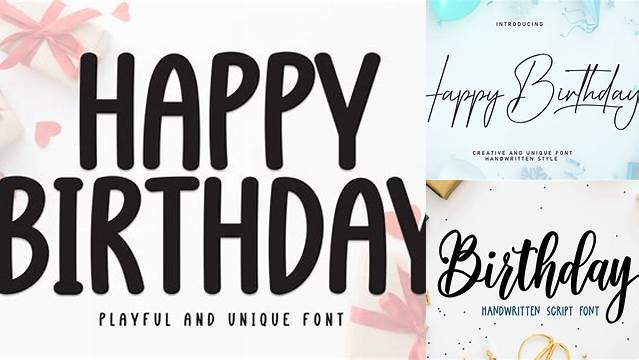
Easy & Fun Fonts For 'Happy Birthday' Wishes
Let's dive into the world of fonts that make saying "Happy Birthday" extra special! Choosing the right font can transform a simple message into a memorable greeting. Whether you're designing a card, creating a social media post, or personalizing a gift, the font you select plays a crucial role in conveying the right tone and feeling. In this article, we'll explore a variety of easy fonts to write happy birthday, offering options for every style and occasion. So, grab your creative hat, and let's get started!
1. Classic & Elegant Fonts for Birthday Greetings
When you want to convey a sense of timelessness and sophistication, classic and elegant fonts are the way to go. These fonts are perfect for formal birthday cards, invitations, or when you want to add a touch of class to your message. Think about how a beautifully written name in calligraphy can elevate a simple card. Easy fonts to write happy birthday in this category include options like Times New Roman, Garamond, and Didot. These fonts have a strong presence and are easy to read, making them ideal for both print and digital media. Using these fonts shows that you've put thought and care into your message, making the recipient feel truly special. Garamond, for instance, has a slightly softer feel than Times New Roman, which can add a touch of warmth to your greeting. Didot, with its high contrast and elegant serifs, is perfect for creating a luxurious feel. Consider pairing these fonts with complementary colors and designs to create a truly memorable birthday message.
2. Fun & Playful Fonts for Kids' Birthdays
For kids' birthdays, you want fonts that are bursting with fun and energy! These fonts should be lively, colorful, and easy to read for young eyes. Easy fonts to write happy birthday for children's celebrations include options like Comic Sans MS (yes, it still has its place!), Bubblegum Sans, and KG Red Hands. These fonts often feature rounded edges, whimsical shapes, and a generally lighthearted feel. Imagine a birthday banner with "Happy Birthday" written in a bubbly, cartoonish font – it immediately sets a festive tone. When selecting a font for kids, consider the overall theme of the party or the child's personality. A font with playful swirls and dots can be perfect for a fairy-tale-themed party, while a bolder, more geometric font might be suitable for a superhero celebration. Don't be afraid to use bright colors and fun graphics to complement the font and create a truly engaging and memorable birthday message.
3. Modern & Stylish Fonts for Birthday Wishes
If you're aiming for a contemporary and chic look, modern and stylish fonts are your best bet. These fonts are sleek, minimalist, and often feature clean lines and geometric shapes. Easy fonts to write happy birthday in a modern style include fonts like Helvetica, Arial, and Montserrat. These fonts are versatile and can be used in a variety of contexts, from social media posts to personalized gifts. They convey a sense of sophistication and forward-thinking, making them perfect for birthdays of friends, colleagues, or anyone who appreciates a modern aesthetic. Helvetica, for example, is known for its neutrality and readability, making it a great choice for conveying a clear and concise birthday message. Arial is another excellent option, offering a similar feel with slightly softer edges. Montserrat, with its geometric forms and clean lines, adds a touch of elegance to any birthday greeting. Pair these fonts with minimalist designs and a modern color palette to create a stylish and memorable birthday message.
4. Handwritten & Script Fonts for a Personal Touch
For a personal and heartfelt touch, handwritten and script fonts are the way to go. These fonts mimic the look of actual handwriting, adding a sense of warmth and intimacy to your birthday message. Easy fonts to write happy birthday with a personal feel include options like Brush Script MT, Lucida Calligraphy, and Pacifico. These fonts often feature flowing strokes, elegant curves, and a unique character that sets them apart from more traditional fonts. Imagine receiving a birthday card with a handwritten message – it feels much more special and personal than a generic, printed greeting. When selecting a handwritten or script font, consider the overall tone of your message and the recipient's personality. A delicate and flowing script might be perfect for a romantic birthday card, while a bolder, more expressive script could be suitable for a close friend or family member. Remember to ensure that the font is still legible, as some handwritten fonts can be difficult to read. Pair these fonts with a handwritten note or a personalized touch to create a truly memorable birthday message.
5. Bold & Impactful Fonts for Birthday Announcements
When you want to make a statement and grab attention, bold and impactful fonts are essential. These fonts are designed to stand out and convey a sense of importance and excitement. Easy fonts to write happy birthday with a bold presence include options like Impact, Bebas Neue, and Montserrat Bold. These fonts often feature thick strokes, strong letterforms, and a generally commanding presence. Think about a birthday banner or a social media post – a bold font can instantly draw the eye and make your message impossible to ignore. When selecting a bold font, consider the overall context of your message and the target audience. A bold font might be perfect for a large birthday celebration or a promotional announcement, but it might be too overwhelming for a more intimate gathering. Use these fonts sparingly and strategically to create a memorable and impactful birthday message. Pair them with contrasting colors and simple designs to maximize their effect and ensure that your message stands out from the crowd.
6. Cursive Fonts for Elegant Birthday Invitations
Cursive fonts, also known as script fonts, are ideal for adding a touch of elegance and sophistication to birthday invitations. These fonts mimic the flowing strokes of handwriting, creating a sense of personalization and charm. Easy fonts to write happy birthday on elegant invitations include options like Brush Script MT, Edwardian Script ITC, and Great Vibes. These fonts often feature decorative flourishes and graceful curves that enhance the overall aesthetic of the invitation. Imagine receiving a beautifully crafted invitation with the recipient's name and birthday details written in a flowing cursive font – it immediately sets a tone of refinement and exclusivity. When selecting a cursive font, consider the overall theme of the party and the desired level of formality. A more elaborate script might be perfect for a black-tie event, while a simpler cursive font could be suitable for a garden party or a casual celebration. Ensure that the font is legible and that the spacing between letters is adequate to maintain readability. Pair these fonts with high-quality paper and elegant design elements to create truly memorable and impressive birthday invitations.
7. Sans-Serif Fonts for Modern Birthday Cards
Sans-serif fonts are characterized by their clean lines and lack of decorative serifs, making them a popular choice for modern and minimalist birthday cards. These fonts offer a sleek and contemporary look that is both versatile and easy to read. Easy fonts to write happy birthday on modern cards include options like Arial, Helvetica, Open Sans, and Roboto. These fonts are often used in digital designs and are well-suited for conveying a sense of simplicity and sophistication. Imagine a birthday card with a sans-serif font paired with a minimalist design and a subtle color palette – it creates a modern and stylish aesthetic that is perfect for conveying your birthday wishes in a contemporary way. When selecting a sans-serif font, consider the overall tone of your message and the recipient's personal style. A lighter sans-serif font can convey a sense of lightness and airiness, while a bolder sans-serif font can add a touch of strength and confidence. Pair these fonts with modern design elements and a clean layout to create a truly impactful and memorable birthday card.
8. Serif Fonts for Traditional Birthday Messages
Serif fonts are characterized by their small decorative strokes (serifs) at the ends of the letterforms, giving them a classic and traditional appearance. These fonts are often used in print materials and are well-suited for conveying a sense of formality and elegance in birthday messages. Easy fonts to write happy birthday in a traditional style include options like Times New Roman, Garamond, and Georgia. These fonts have a timeless quality and are often associated with sophistication and refinement. Imagine a birthday message written in a serif font on high-quality paper – it conveys a sense of tradition and thoughtfulness that is perfect for expressing your heartfelt wishes. When selecting a serif font, consider the overall tone of your message and the recipient's personal preferences. A more ornate serif font can add a touch of grandeur, while a simpler serif font can convey a sense of understated elegance. Pair these fonts with classic design elements and a traditional color palette to create a truly timeless and memorable birthday message.
9. Display Fonts for Eye-Catching Birthday Banners
Display fonts are designed to be used in large sizes, making them ideal for creating eye-catching birthday banners and posters. These fonts often feature unique and decorative letterforms that are meant to grab attention and make a statement. Easy fonts to write happy birthday on banners include options like Impact, Bebas Neue, and Lobster. These fonts are bold, attention-grabbing, and designed to stand out from the crowd. Imagine a birthday banner with "Happy Birthday" written in a bold display font – it immediately sets a festive tone and adds to the excitement of the celebration. When selecting a display font, consider the overall theme of the party and the target audience. A playful display font might be perfect for a children's birthday party, while a more sophisticated display font could be suitable for an adult celebration. Ensure that the font is legible and that the banner is visually appealing. Pair these fonts with bright colors and fun graphics to create a truly memorable and impactful birthday banner.
10. Monospace Fonts for Unique Birthday Cards
Monospace fonts, where each character occupies the same amount of horizontal space, offer a unique and unconventional look for birthday cards. These fonts can add a touch of retro charm or a modern, tech-inspired aesthetic to your birthday greetings. Easy fonts to write happy birthday on unique cards include options like Courier New, Consolas, and Monaco. These fonts are often associated with typewriters and coding, giving them a distinctive and recognizable appearance. Imagine a birthday card with a monospace font paired with a minimalist design and a contrasting color palette – it creates a modern and edgy aesthetic that is perfect for conveying your birthday wishes in a unique and unexpected way. When selecting a monospace font, consider the overall tone of your message and the recipient's personal style. A lighter monospace font can convey a sense of simplicity and clarity, while a bolder monospace font can add a touch of strength and confidence. Pair these fonts with modern design elements and a clean layout to create a truly impactful and memorable birthday card.
11. Vintage Fonts for Nostalgic Birthday Wishes
Vintage fonts evoke a sense of nostalgia and charm, making them perfect for creating birthday messages that feel like they've been plucked from a bygone era. These fonts often feature unique serifs, decorative elements, and a handcrafted feel that adds character and warmth to your greetings. Easy fonts to write happy birthday with a vintage touch include options like Playfair Display, Raleway, and Cinzel. These fonts harken back to different periods in history, from the elegant Art Deco era to the rustic charm of old-fashioned signage. Imagine a birthday card with a vintage font paired with sepia-toned images and antique-inspired designs – it creates a timeless and heartfelt message that is sure to be appreciated. When selecting a vintage font, consider the specific era you want to evoke and the recipient's personal style. A more ornate vintage font can add a touch of grandeur, while a simpler vintage font can convey a sense of understated elegance. Pair these fonts with appropriate design elements and a complementary color palette to create a truly memorable and nostalgic birthday message.
12. Calligraphy Fonts for Elegant Birthday Cards
Calligraphy fonts mimic the elegant strokes of traditional calligraphy, adding a touch of sophistication and artistry to birthday cards. These fonts are perfect for creating a sense of personalization and refinement, making the recipient feel truly special. Easy fonts to write happy birthday on elegant cards include options like Alex Brush, Allura, and Windsong. These fonts feature flowing lines, decorative flourishes, and a handcrafted feel that elevates the overall aesthetic of the card. Imagine a birthday card with "Happy Birthday" written in a beautiful calligraphy font – it immediately conveys a sense of care and attention to detail. When selecting a calligraphy font, consider the overall tone of your message and the recipient's personality. A more elaborate and ornate calligraphy font might be perfect for a formal birthday, while a simpler and more understated calligraphy font could be suitable for a more casual celebration. Pair these fonts with elegant design elements and a complementary color palette to create a truly memorable and artistic birthday card.
13. Retro Fonts for Groovy Birthday Greetings
Retro fonts capture the spirit of past decades, from the psychedelic 60s to the bold 80s, making them a fun and unique choice for birthday greetings. These fonts often feature bold shapes, vibrant colors, and a playful attitude that adds a touch of nostalgia to your messages. Easy fonts to write happy birthday with a retro vibe include options like Cooper Black, Bauhaus 93, and ITC Benguiat. These fonts evoke a sense of fun and freedom, perfect for celebrating birthdays with a touch of retro flair. Imagine a birthday card with a retro font paired with vintage illustrations and a bold color palette – it creates a groovy and memorable message that is sure to bring a smile to the recipient's face. When selecting a retro font, consider the specific decade you want to represent and the recipient's personal style. A font reminiscent of disco or funk can add a playful energy, while a font inspired by classic movie posters can create a more sophisticated retro look. Pair these fonts with appropriate design elements and a complementary color palette to create a truly authentic and memorable retro birthday message.
14. Fun Script Fonts for Playful Birthday Wishes
Fun script fonts are perfect for adding a touch of whimsy and playfulness to your birthday wishes. These fonts often feature exaggerated curves, quirky shapes, and a lighthearted feel that is sure to bring a smile to the recipient's face. Easy fonts to write happy birthday with a playful twist include options like Lobster Two, Amatic SC, and Permanent Marker. These fonts are ideal for casual birthday greetings, children's parties, or any occasion where you want to inject a bit of fun into your message. Imagine a birthday card with "Happy Birthday" written in a fun script font – it immediately sets a cheerful and festive tone. When selecting a fun script font, consider the overall theme of your message and the recipient's personality. A font with bouncy letters and playful swirls can add a touch of lightheartedness, while a font that mimics handwriting can create a more personal and intimate feel. Pair these fonts with colorful design elements and a complementary color palette to create a truly memorable and playful birthday message.
15. Elegant Script Fonts for Formal Birthday Celebrations
Elegant script fonts exude sophistication and grace, making them ideal for formal birthday celebrations and invitations. These fonts feature flowing lines, delicate curves, and a refined appearance that adds a touch of luxury to your messages. Easy fonts to write happy birthday on elegant invitations include options like Edwardian Script ITC, Great Vibes, and Dancing Script. These fonts are perfect for creating a sense of importance and exclusivity, making the recipient feel truly special. Imagine a birthday invitation with "Happy Birthday" written in an elegant script font – it immediately conveys a sense of sophistication and attention to detail. When selecting an elegant script font, consider the overall tone of your event and the desired level of formality. A more elaborate and ornate script font might be perfect for a black-tie gala, while a simpler and more understated script font could be suitable for a cocktail party or a formal dinner. Pair these fonts with high-quality paper, elegant design elements, and a complementary color palette to create a truly memorable and sophisticated birthday celebration.
16. Geometric Fonts for Modern Birthday Greetings
Geometric fonts are characterized by their clean lines, precise shapes, and a contemporary aesthetic, making them a popular choice for modern birthday greetings. These fonts offer a sleek and minimalist look that is both versatile and easy to read. Easy fonts to write happy birthday on modern cards include options like Montserrat, Futura, and Avenir. These fonts are often used in digital designs and are well-suited for conveying a sense of simplicity and sophistication. Imagine a birthday card with a geometric font paired with a minimalist design and a subtle color palette – it creates a modern and stylish aesthetic that is perfect for conveying your birthday wishes in a contemporary way. When selecting a geometric font, consider the overall tone of your message and the recipient's personal style. A lighter geometric font can convey a sense of lightness and airiness, while a bolder geometric font can add a touch of strength and confidence. Pair these fonts with modern design elements and a clean layout to create a truly impactful and memorable birthday card.
17. Slab Serif Fonts for Bold Birthday Announcements
Slab serif fonts, characterized by their thick, block-like serifs, make a bold statement and are ideal for birthday announcements. These fonts command attention and convey a sense of strength and reliability. Easy fonts to write happy birthday on announcements include options like Rockwell, Courier Prime, and Roboto Slab. These fonts stand out and are easy to read, making them perfect for banners, posters, and digital displays. Imagine a birthday announcement with "Happy Birthday" written in a slab serif font – it immediately grabs attention and conveys a sense of importance. When selecting a slab serif font, consider the overall tone of your message and the target audience. A bolder slab serif font can be perfect for a grand celebration, while a more refined slab serif font could be suitable for a professional setting. Pair these fonts with contrasting colors and simple designs to maximize their effect and ensure that your message is clear and impactful.
18. Brush Script Fonts for Personalized Birthday Notes
Brush script fonts mimic the look of handwritten brushstrokes, adding a personal and artistic touch to birthday notes. These fonts convey a sense of warmth and authenticity, making the recipient feel truly special. Easy fonts to write happy birthday in a handwritten style include options like Brush Script MT, Pacifico, and Permanent Marker. These fonts are perfect for expressing heartfelt sentiments and creating a connection with the recipient. Imagine a birthday note with "Happy Birthday" written in a brush script font – it feels much more intimate and thoughtful than a generic, printed greeting. When selecting a brush script font, consider the overall tone of your message and the recipient's personality. A delicate and flowing brush script might be perfect for a romantic birthday, while a bolder and more expressive brush script could be suitable for a close friend or family member. Pair these fonts with a handwritten signature or a personalized message to create a truly memorable and touching birthday note.
19. Handwritten-Style Fonts for Casual Birthday Greetings
Handwritten-style fonts bring a personal and relatable feel to your casual birthday greetings. These fonts mimic the quirks and imperfections of actual handwriting, making your messages feel more authentic and heartfelt. Easy fonts to write happy birthday in a casual manner include options like Coming Soon, Indie Flower, and Patrick Hand. These fonts are perfect for friends, family, and anyone you want to connect with on a more personal level. Imagine receiving a birthday message written in a handwritten-style font – it feels warm, genuine, and full of character. When selecting a handwritten-style font, consider the recipient's personality and the overall tone of your message. A neat and legible handwritten font might be suitable for a colleague or acquaintance, while a more casual and expressive handwritten font could be perfect for a close friend or family member. Pair these fonts with a simple design and a personal message to create a truly memorable and heartfelt birthday greeting.
20. Layered Fonts for 3D Birthday Designs
Layered fonts offer a unique and visually appealing way to create 3D effects in your birthday designs. These fonts are designed with multiple layers that can be colored and positioned to give the illusion of depth and dimension. Easy fonts to write happy birthday in a 3D style include options like Bison, Modular, and Block Party. These fonts are perfect for creating eye-catching banners, posters, and social media graphics that will truly stand out. Imagine a birthday banner with "Happy Birthday" written in a layered font with a vibrant 3D effect – it's sure to grab attention and add a touch of excitement to the celebration. When selecting a layered font, consider the overall design of your project and the desired level of complexity. A simpler layered font can create a subtle 3D effect, while a more intricate layered font can produce a dramatic and eye-catching result. Experiment with different colors, shadows, and layering techniques to achieve the perfect 3D look for your birthday designs.
21. Outline Fonts for Minimalist Birthday Cards
Outline fonts, with their hollow centers and defined edges, offer a minimalist and contemporary look for birthday cards. These fonts are perfect for creating a clean and modern aesthetic that is both stylish and easy to read. Easy fonts to write happy birthday on minimalist cards include options like Bebas Neue, Montserrat, and Raleway. These fonts are often used in digital designs and are well-suited for conveying a sense of simplicity and sophistication. Imagine a birthday card with "Happy Birthday" written in an outline font paired with a minimalist design and a subtle color palette – it creates a modern and stylish aesthetic that is perfect for conveying your birthday wishes in a contemporary way. When selecting an outline font, consider the overall tone of your message and the recipient's personal style. A lighter outline font can convey a sense of lightness and airiness, while a bolder outline font can add a touch of strength and confidence. Pair these fonts with modern design elements and a clean layout to create a truly impactful and memorable birthday card.
22. Shadow Fonts for Dynamic Birthday Graphics
Shadow fonts add depth and dimension to your birthday graphics, creating a dynamic and visually appealing effect. These fonts are designed with a shadow that extends from the letterforms, giving the illusion of a 3D appearance. Easy fonts to write happy birthday with a shadow effect include options like Impact, Arial Black, and Bebas Neue. These fonts are perfect for creating eye-catching banners, posters, and social media graphics that will grab attention and add a touch of excitement to the celebration. Imagine a birthday banner with "Happy Birthday" written in a shadow font with a vibrant color palette – it's sure to make a statement and create a festive atmosphere. When selecting a shadow font, consider the overall design of your project and the desired level of depth. A subtle shadow can add a touch of sophistication, while a more dramatic shadow can create a bold and eye-catching effect. Experiment with different shadow colors, angles, and offsets to achieve the perfect look for your birthday graphics.
23. Distorted Fonts for Edgy Birthday Designs
Distorted fonts, with their irregular shapes and unconventional forms, bring an edgy and unique twist to birthday designs. These fonts break away from traditional typography and offer a creative way to express your birthday wishes with a touch of rebellion. Easy fonts to write happy birthday with a distorted look include options like VTF Redzone Classic, Anarchy, and Bad Grunge. These fonts are perfect for individuals who appreciate unconventional styles and want to add a bold statement to their birthday greetings. Imagine a birthday card with "Happy Birthday" written in a distorted font paired with a grunge-inspired design and a contrasting color palette – it creates an edgy and memorable message that is sure to stand out. When selecting a distorted font, consider the recipient's personality and the overall tone of your message. A subtly distorted font can add a touch of character, while a more drastically distorted font can convey a sense of boldness and nonconformity. Pair these fonts with edgy design elements and a complementary color palette to create a truly unique and memorable birthday design.
24. Pixel Fonts for Retro Gaming Birthday Themes
Pixel fonts, reminiscent of classic video games, are a fun and nostalgic choice for birthday themes centered around retro gaming. These fonts capture the charm of 8-bit and 16-bit graphics, adding a playful and whimsical touch to your birthday greetings. Easy fonts to write happy birthday in a pixelated style include options like Press Start 2P, 8-Bit Operator, and VCR OSD Mono. These fonts are perfect for creating invitations, banners, and decorations for a retro gaming-themed birthday party. Imagine a birthday invitation with "Happy Birthday" written in a pixel font alongside pixelated characters and game-inspired designs – it's sure to set the tone for a fun and nostalgic celebration. When selecting a pixel font, consider the resolution and legibility of the font. A clear and easy-to-read pixel font is essential, especially when used in smaller sizes. Pair these fonts with retro gaming elements and a complementary color palette to create an authentic and memorable retro gaming birthday theme.
25. Chalkboard Fonts for Rustic Birthday Celebrations
Chalkboard fonts evoke the charm of handwritten messages on a chalkboard, making them a perfect choice for rustic and DIY-themed birthday celebrations. These fonts offer a casual and informal feel, adding a touch of warmth and authenticity to your birthday greetings. Easy fonts to write happy birthday in a chalkboard style include options like Chalkduster, Amatic SC, and Permanent Marker. These fonts are ideal for creating invitations, signs, and decorations for a rustic or vintage-inspired birthday party. Imagine a birthday sign with "Happy Birthday" written in a chalkboard font alongside hand-drawn illustrations and rustic design elements – it's sure to create a cozy and inviting atmosphere. When selecting a chalkboard font, consider the legibility and authenticity of the font. A clear and easy-to-read chalkboard font is essential, while a font that mimics the look of actual chalk can add a touch of realism. Pair these fonts with rustic elements and a complementary color palette to create a truly memorable and charming chalkboard-themed birthday celebration.
26. Neon Fonts for Vibrant Birthday Parties
Neon fonts capture the bright and vibrant energy of neon signs, making them a perfect choice for lively and exciting birthday parties. These fonts glow with color and add a touch of retro flair to your birthday greetings. Easy fonts to write happy birthday in a neon style include options like Neon Tube, Midnight, and Retron2000. These fonts are ideal for creating eye-catching invitations, banners, and decorations for a neon-themed birthday party. Imagine a birthday banner with "Happy Birthday" written in a neon font with glowing colors and bold designs – it's sure to create a vibrant and energetic atmosphere. When selecting a neon font, consider the contrast and legibility of the font. A clear and easy-to-read neon font is essential, especially when used in low-light settings. Pair these fonts with bold colors and retro-inspired elements to create an authentic and memorable neon-themed birthday party.
27. Comic Book Fonts for Superhero Birthday Themes
Comic book fonts, inspired by the typography of comic books, add a bold and dynamic touch to superhero birthday themes. These fonts capture the energy and excitement of comic book adventures, making them perfect for celebrating a superhero-themed birthday party. Easy fonts to write happy birthday in a comic book style include options like Komika Axis, Action Comics, and Badaboom BB. These fonts are ideal for creating invitations, banners, and decorations that transport guests into the world of superheroes. Imagine a birthday invitation with "Happy Birthday" written in a comic book font alongside superhero illustrations and action-packed designs – it's sure to excite young guests and set the stage for an epic celebration. When selecting a comic book font, consider the legibility and authenticity of the font. A clear and easy-to-read comic book font is essential, while a font that captures the style of classic comic books can add a touch of nostalgia. Pair these fonts with superhero-themed elements and a complementary color palette to create an unforgettable superhero birthday experience.
28. Graffiti Fonts for Urban Birthday Celebrations
Graffiti fonts, inspired by street art and urban culture, bring a bold and edgy style to birthday celebrations. These fonts capture the energy and creativity of graffiti art, making them perfect for celebrating birthdays with an urban flair. Easy fonts to write happy birthday in a graffiti style include options like Urban Jungle, Ruthless, and Degrassi. These fonts are ideal for creating invitations, banners, and decorations that reflect the spirit of street art. Imagine a birthday banner with "Happy Birthday" written in a graffiti font alongside urban-inspired illustrations and vibrant colors – it's sure to create a unique and energetic atmosphere. When selecting a graffiti font, consider the legibility and authenticity of the font. A clear and easy-to-read graffiti font is essential, while a font that captures the style of authentic graffiti art can add a touch of realism. Pair these fonts with urban-themed elements and a complementary color palette to create a truly unforgettable urban birthday celebration.
29. Futuristic Fonts for Sci-Fi Birthday Parties
Futuristic fonts, with their sleek lines and technological aesthetic, add a touch of innovation to sci-fi birthday parties. These fonts capture the essence of futuristic technology and design, making them perfect for celebrating birthdays with a science fiction theme. Easy fonts to write happy birthday in a futuristic style include options like Bank Gothic, Exotica, and Neuropol X. These fonts are ideal for creating invitations, banners, and decorations that transport guests to a world of tomorrow. Imagine a birthday invitation with "Happy Birthday" written in a futuristic font alongside sci-fi illustrations and sleek designs – it's sure to excite guests and set the stage for an out-of-this-world celebration. When selecting a futuristic font, consider the legibility and authenticity of the font. A clear and easy-to-read futuristic font is essential, while a font that captures the style of classic science fiction can add a touch of nostalgia. Pair these fonts with sci-fi-themed elements and a complementary color palette to create an unforgettable sci-fi birthday experience.
30. Rounded Fonts for Friendly Birthday Wishes
Rounded fonts, with their soft edges and approachable forms, convey a sense of warmth and friendliness in birthday wishes. These fonts offer a welcoming and inviting feel, making them perfect for expressing your birthday greetings with a touch of affection. Easy fonts to write happy birthday with a rounded aesthetic include options like Nunito, Quicksand, and Baloo. These fonts are ideal for creating cards, messages, and designs that feel gentle and inviting. Imagine a birthday card with "Happy Birthday" written in a rounded font, paired with soft colors and simple illustrations – it creates a heartwarming and sincere message that will surely make the recipient feel appreciated. When selecting a rounded font, consider the legibility and overall aesthetic of the font. Ensure that the rounded edges are balanced and do not compromise readability. Pair these fonts with friendly design elements and a complementary color palette to create a truly memorable and heartwarming birthday message. These fonts are versatile and suitable for all ages and types of birthday celebrations, making them a great choice for adding a personal and caring touch.